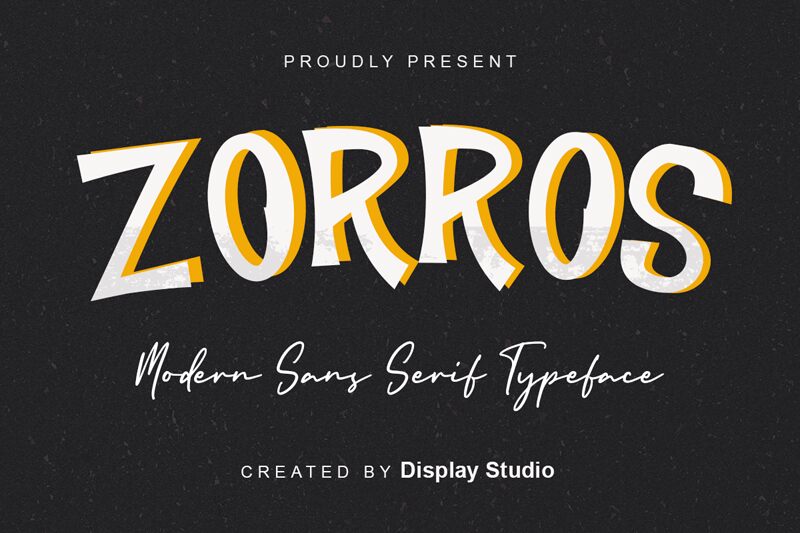
ZORROS is a playful display font created by Display Studio, perfect for projects that require a touch of humor and whimsy. With its semi-light weight and comic style, ZORROS lends itself well to designs that need a fun and approachable feel. The typeface's unique character shapes are sure to grab attention, making it an ideal choice for branding materials, packaging, or even children's books. Let ZORROS add a touch of lightheartedness to your next project!